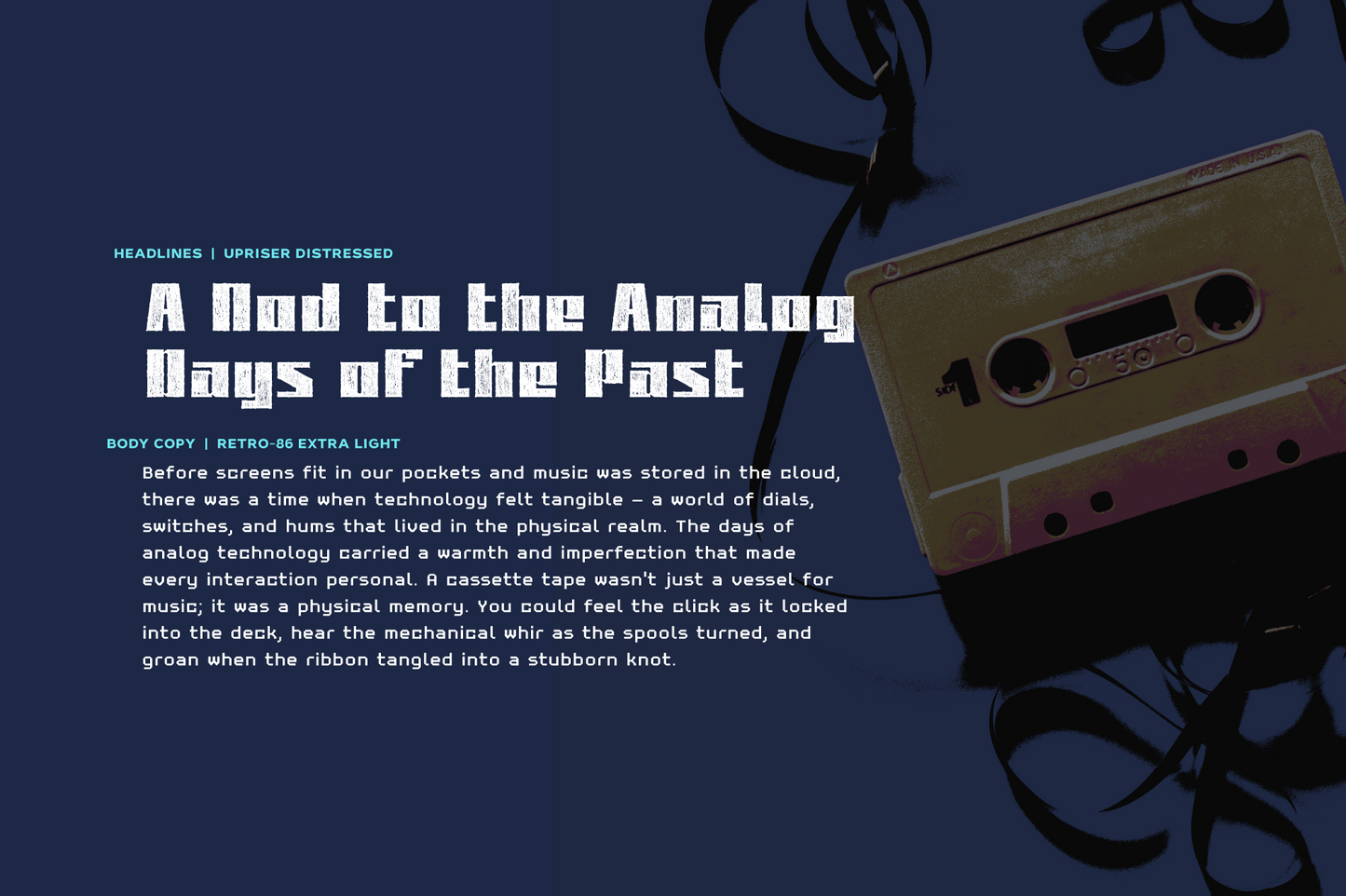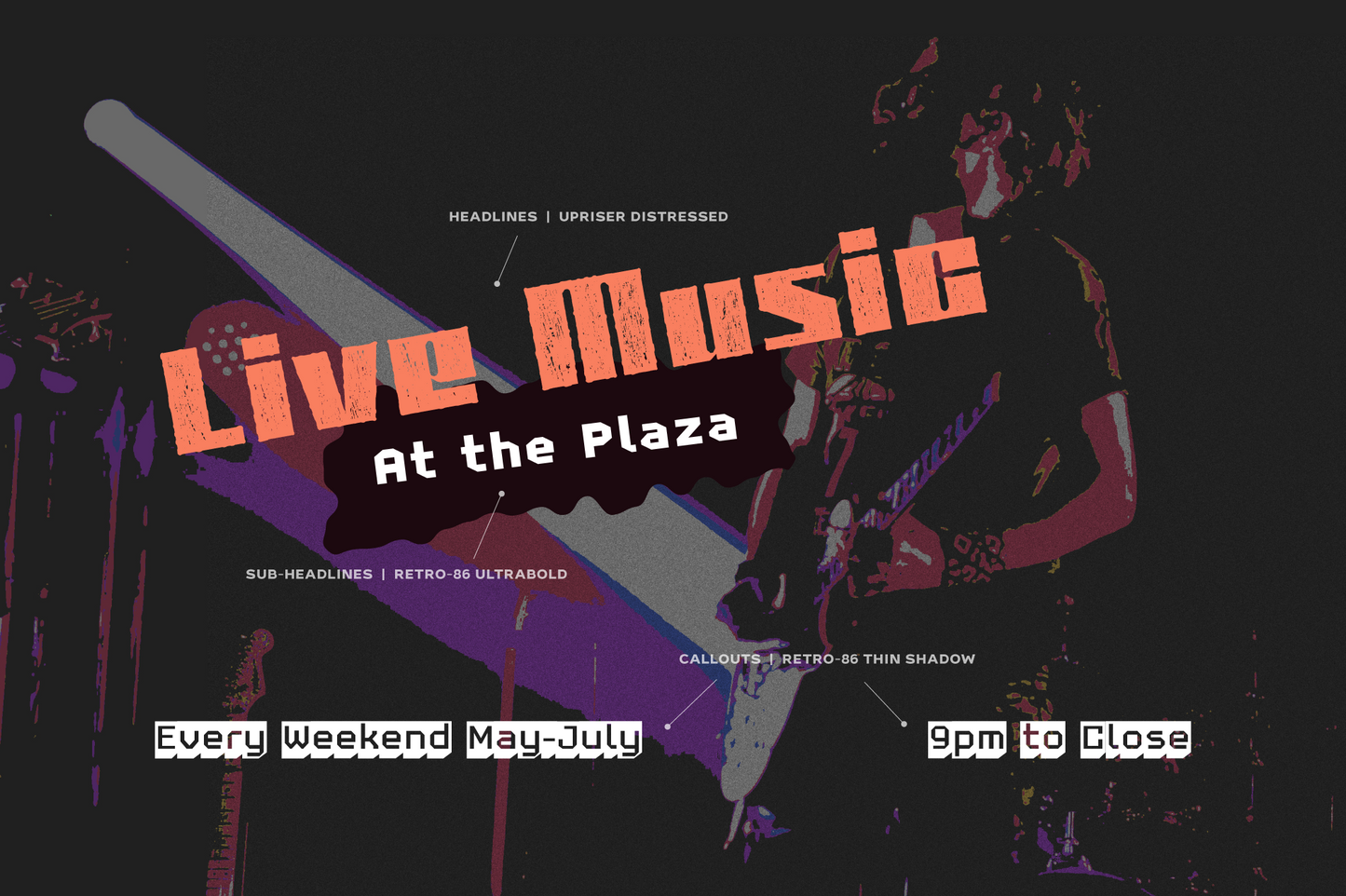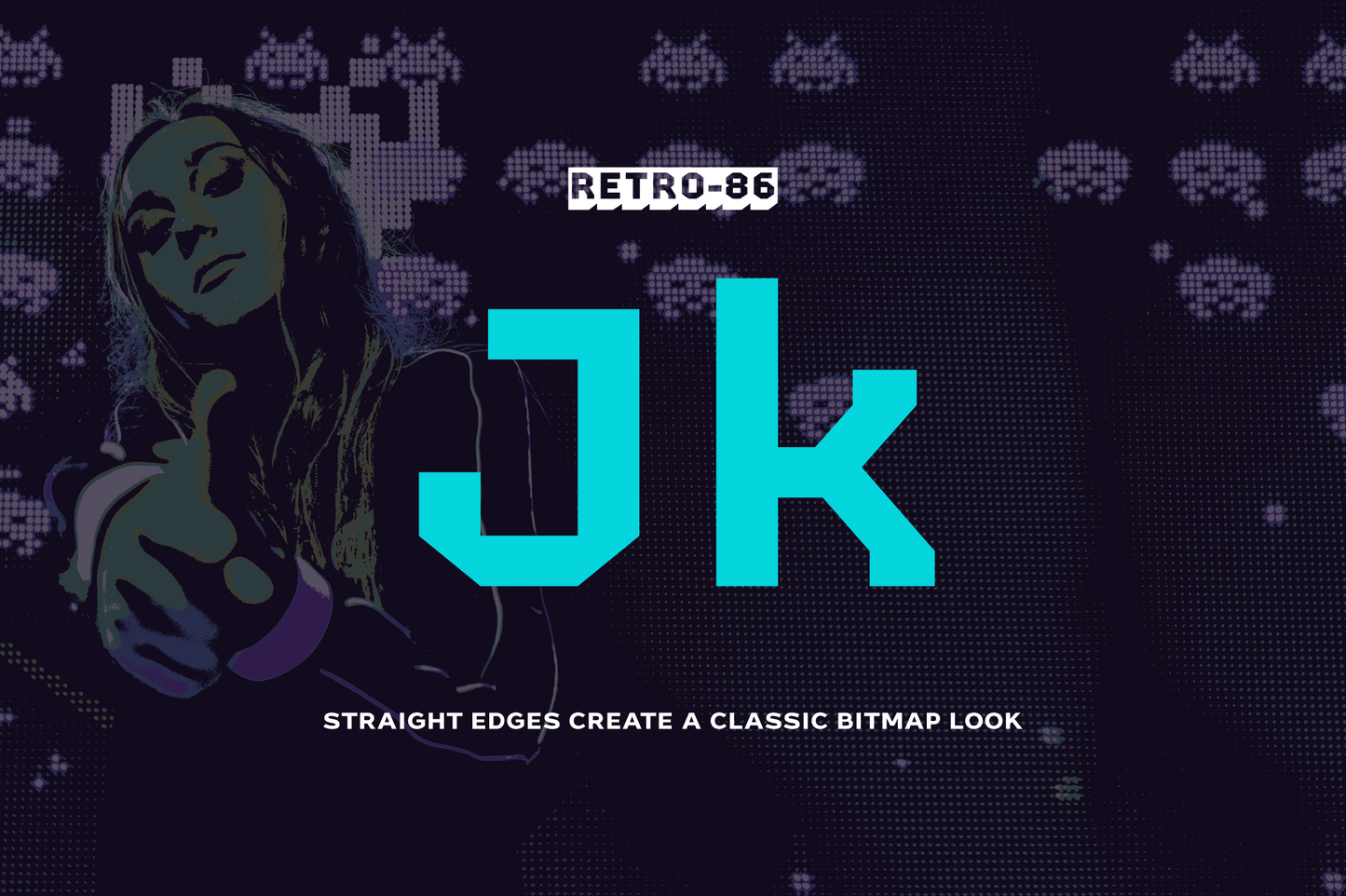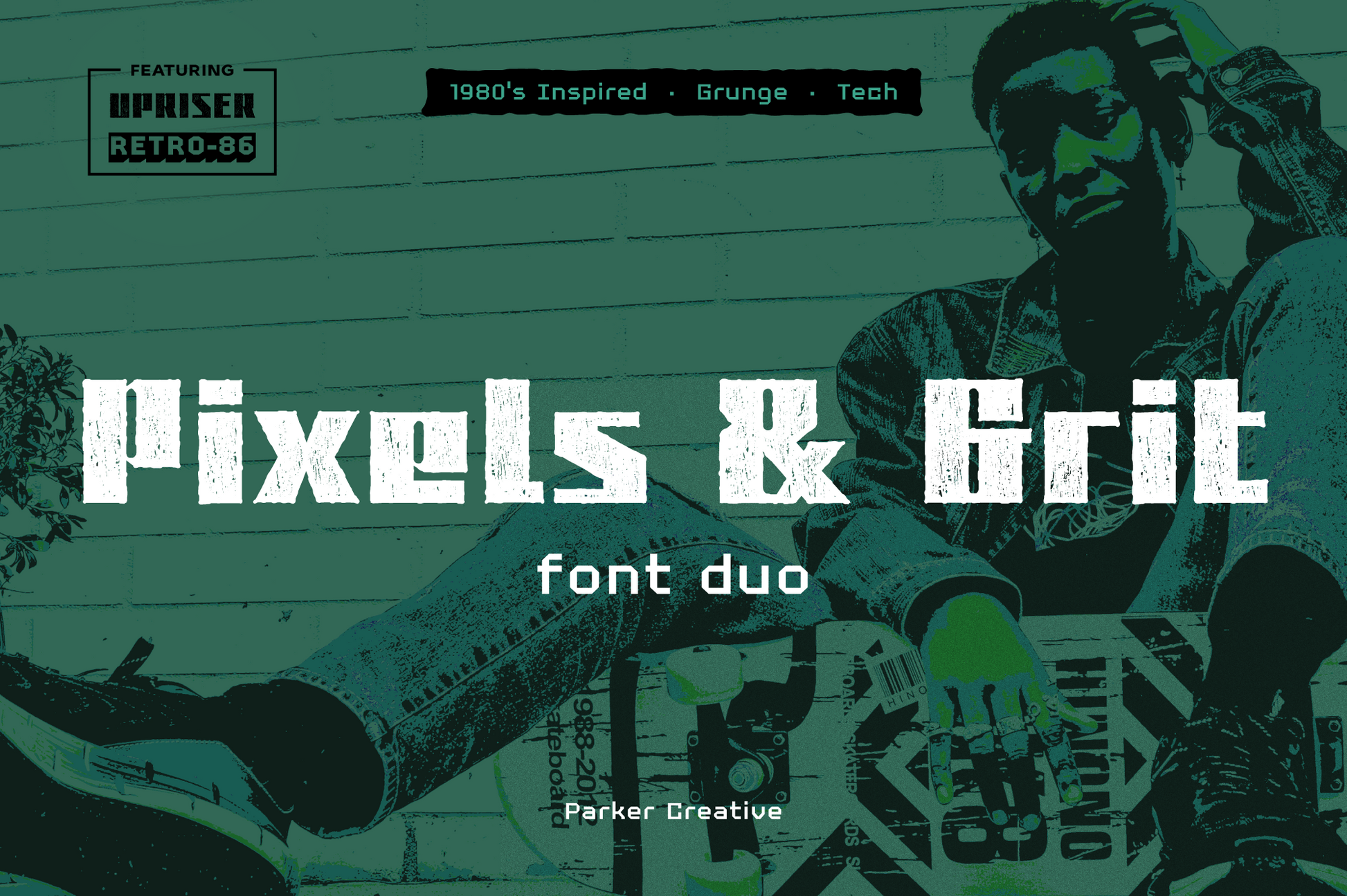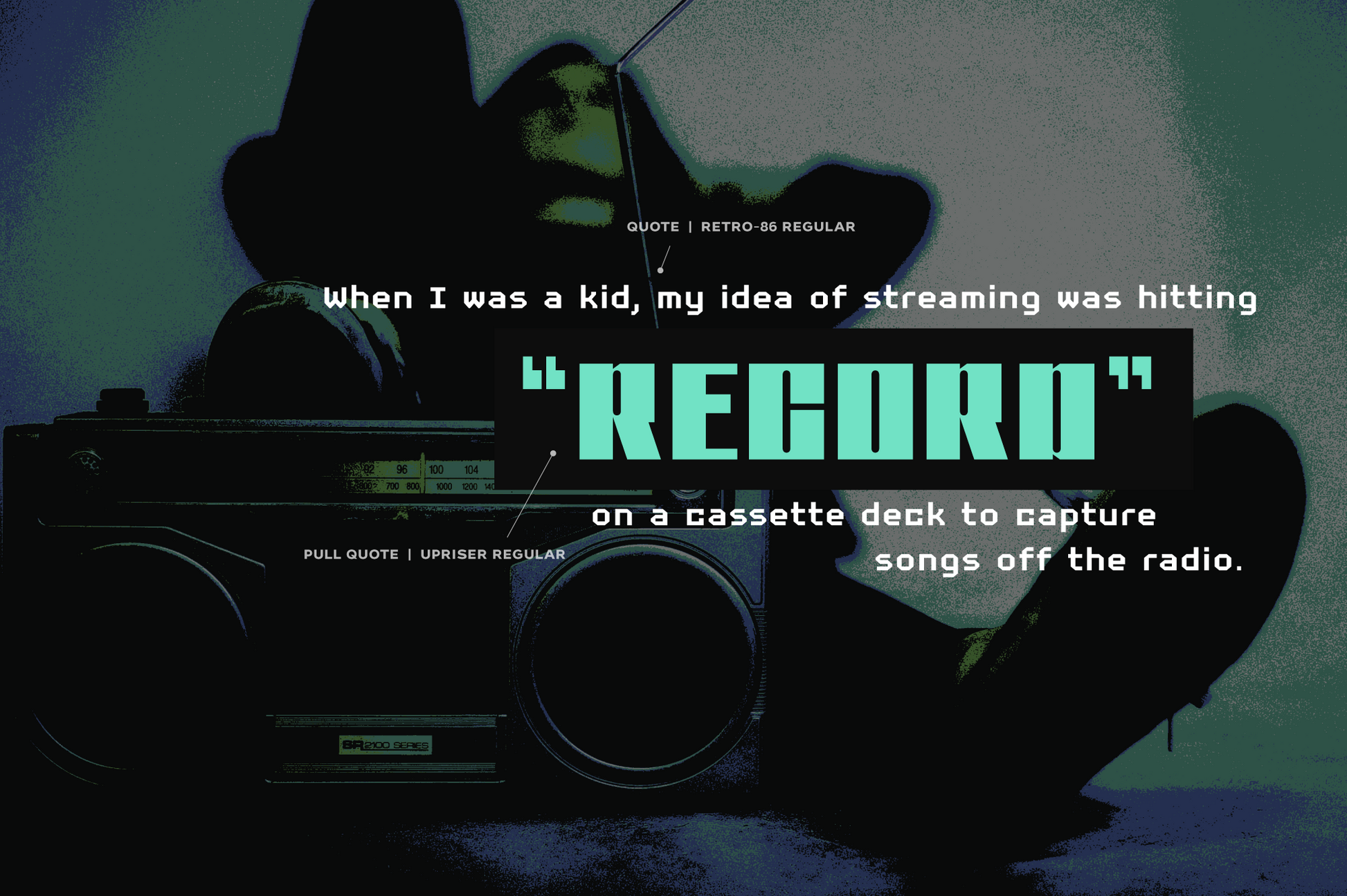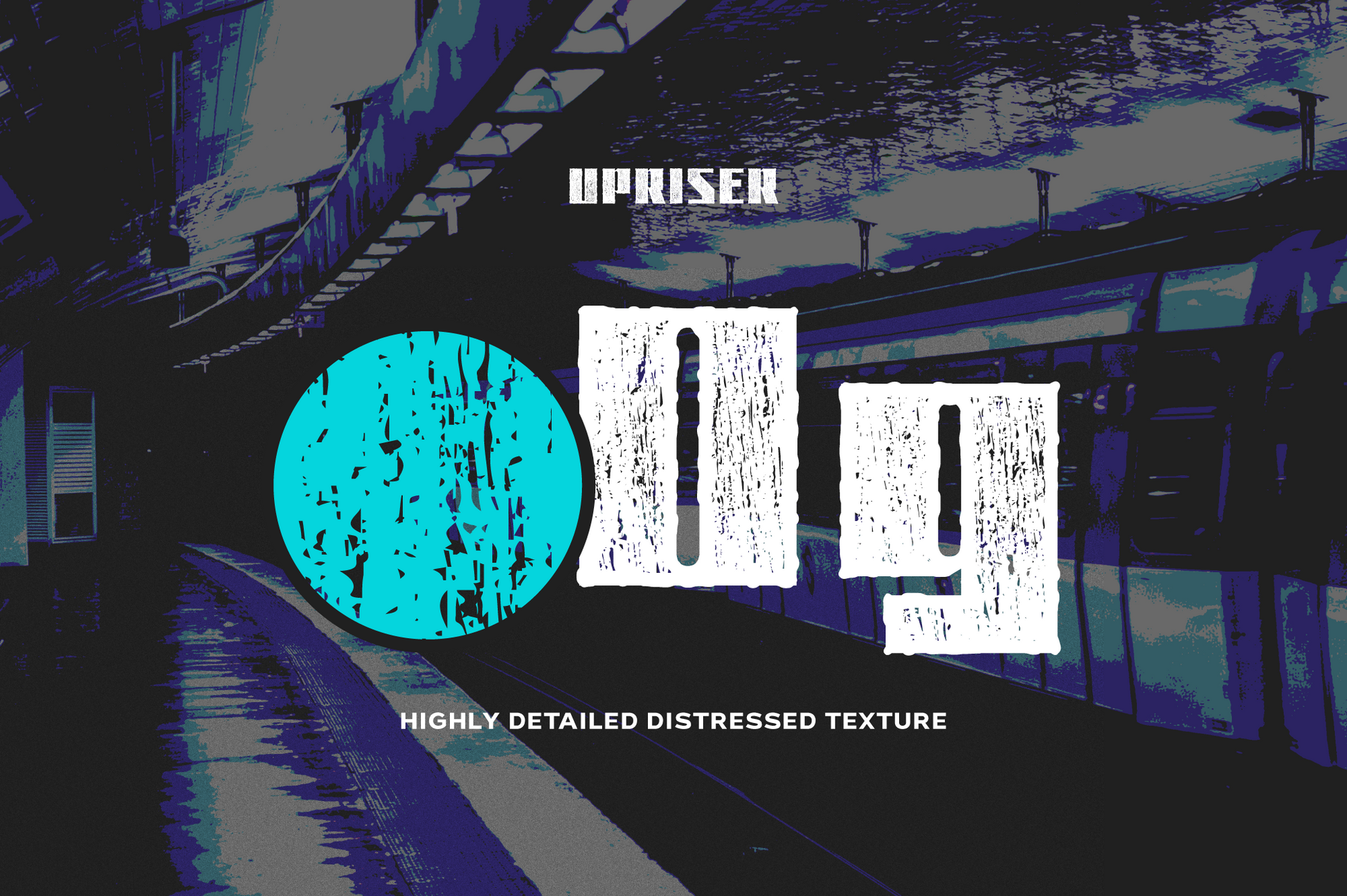
Pixels and Grit Font Duo
Unlock a bold retro edge with the Pixels and Grit font duo—a budget-friendly font bundle built for standout design. Featuring Upriser, a gritty grunge-rock display, paired with Retro 86, a blocky, low-res computer-style sans, this pairing offers maximum versatility for logos, posters, social media, branding, and beyond.